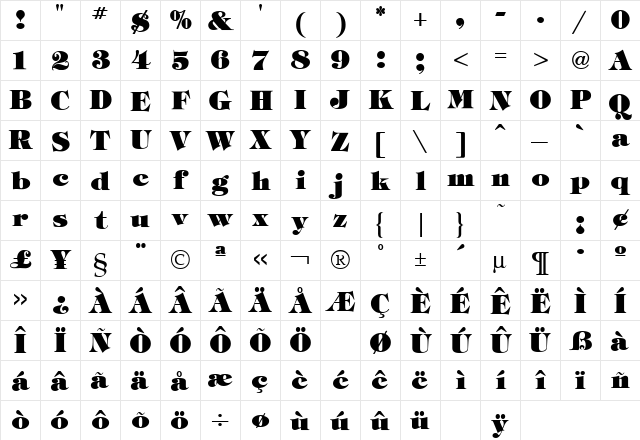
Tiffany Heavy Regular
Design Context for Tiffany Heavy Typeface
Tiffany Heavy takes a measured approach to typography — its balanced proportions and neutral character make it a reliable workhorse for both digital and print work.